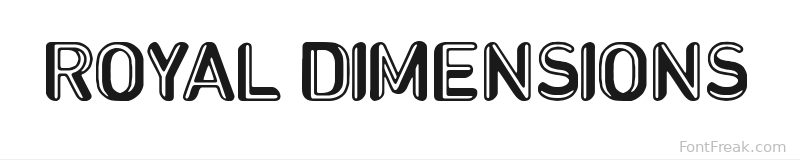
Royal dimensions
Royal Dimensions is a striking display font designed by Woodcutter Manero, characterized by its unique blend of bold, angular forms and playful embellishments. This decorative font features a thick stroke weight that commands attention, paired with contrasting elements that create visual interest. The letters exhibit a varying degree of spacing, allowing for an engaging rhythm that enhances readability while maintaining an eye-catching aesthetic. The distinct decorative elements, including rounded edges and unexpected angles, give the font a modern yet regal feel, making it suitable for a variety of creative projects.
Ideal for wedding invitations, event flyers, and movie posters, the Royal Dimensions font brings a sense of elegance and creativity to any design. Its unique style makes it a perfect choice for branding materials, such as restaurant menus and promotional graphics, where making a memorable impression is key. Small business owners looking to elevate their marketing materials will find this font particularly appealing, as it balances sophistication with a contemporary edge.
Graphic designers and content creators will appreciate the versatility of Royal Dimensions, as it effortlessly adapts to both digital and print formats. Its distinctive appearance ensures that any project stands out, making it a valuable addition to any designer's toolkit.
What truly sets the Royal Dimensions font apart is its ability to convey a sense of grandeur while remaining accessible. The combination of its bold forms and playful characteristics creates a unique font that stands out in any context. With its freeware license, enthusiasts can easily access this font for personal and commercial projects, making the Royal Dimensions font free download an attractive option for anyone looking to make a statement in their designs.